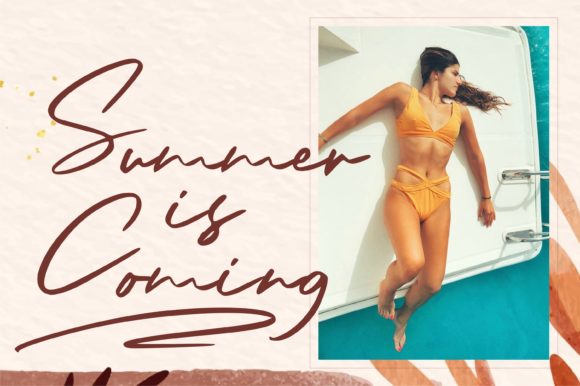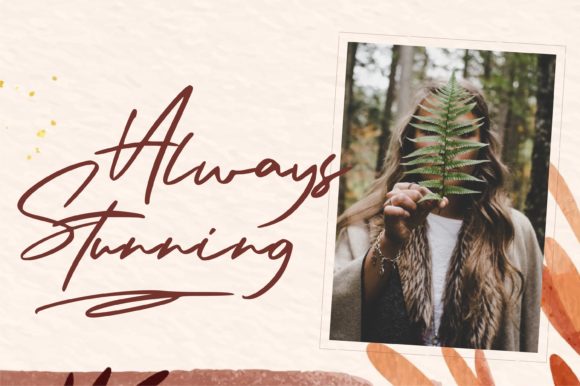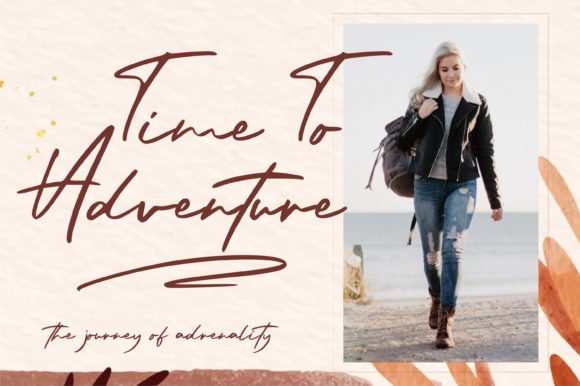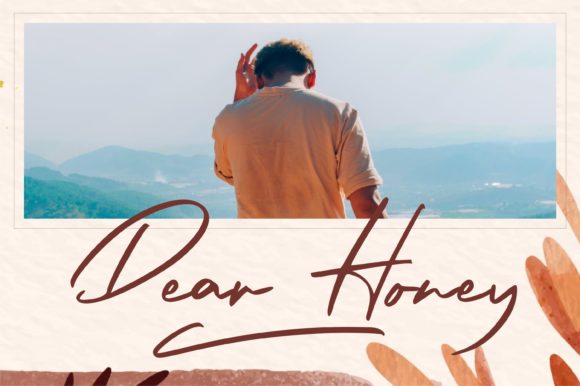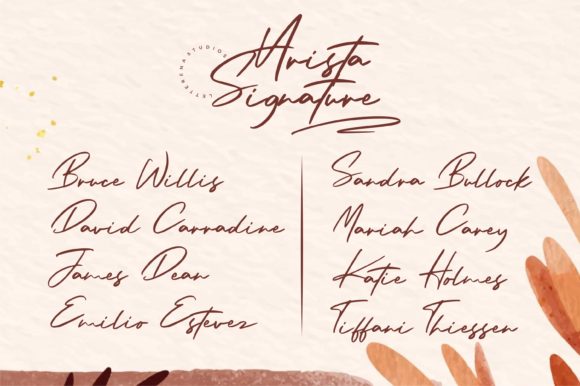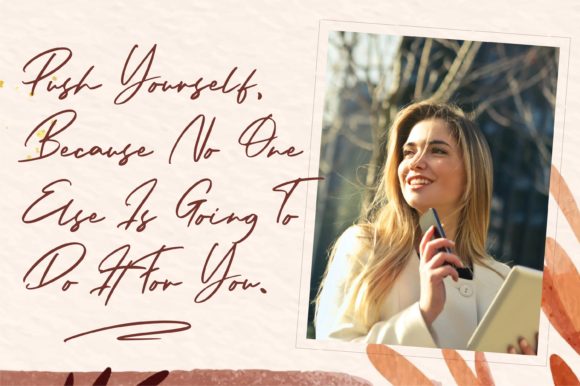
Introduction to Arista Signature Font
Arista Signature is a beautiful, flowing and relaxed handwritten font.
Brushed and timeless, this font is ideal for each of your casual designs .
Key Features of Arista Signature Font
Why Choose Arista Signature Font?
Arista Signature Font offers exceptional quality and versatility, making it a valuable addition to your design toolkit. Whether you’re creating for personal projects or commercial use, Arista Signature Font delivers professional results.